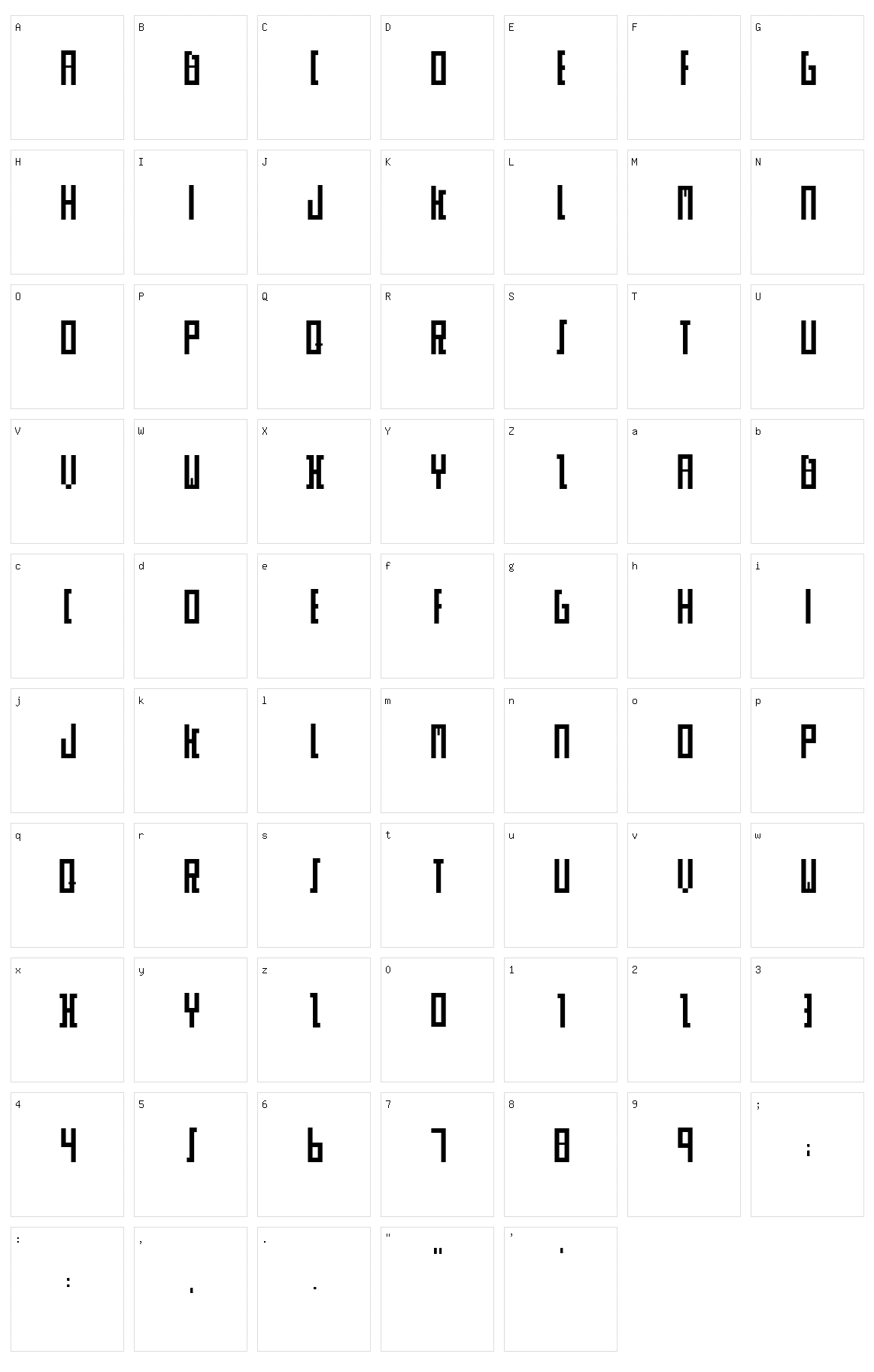
The free font Skor is carefully designed by Luciano Skorianez, showcasing a thoughtful balance of creativity and usability and falls under the Square font style. When you download the ZIP file, it contains only 8.01 KB of font files, making it lightweight and quick to download. Please review the license details below to understand permitted usage and distribution rights. If license information is not available, we recommend using this font for personal projects only or contacting the author directly for commercial usage permissions.